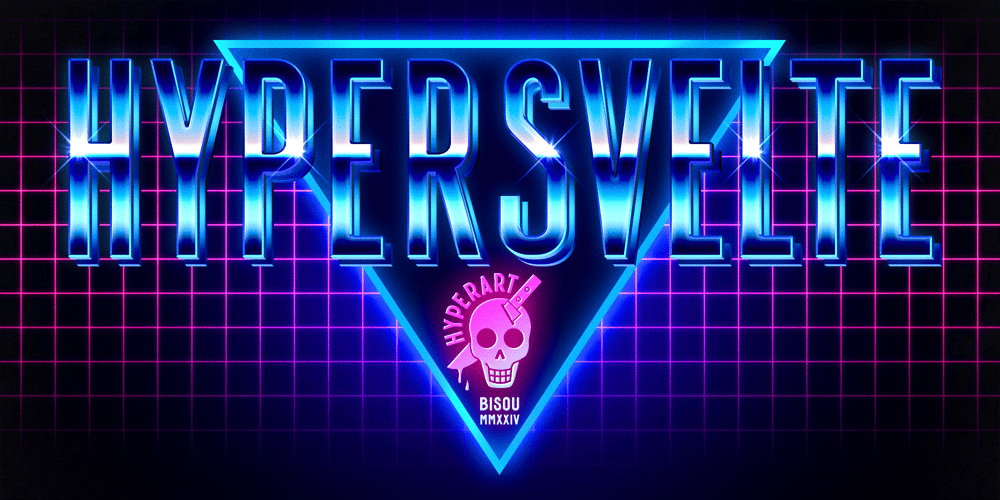
Hyper Svelte Font Family was designed by Mathias Antonietti and published by Bisou. Hyper Svelte contains 1 styles and family package options. Made in La Chaux-de-Fonds Switzerland, Hyper Svelte is born while the hyperdesigner Bisou is playing with a double meter, drawing the capital letter “A” by folding it. The sleek shape of the letter inspires him a typeface that is elegant, distinguished and casual at the same time.Hyper Svelte is thought from ground up to slow down the passerby and bring focus on the text. Its hyper condensed weight makes it particularly suitable for film poster credits or title. It works perfectly with short texts for advertisement like a fitness sign or the logo from a great textile designer. Just use it for your fitness place and see Jane Fonda making aerobic in your venue.